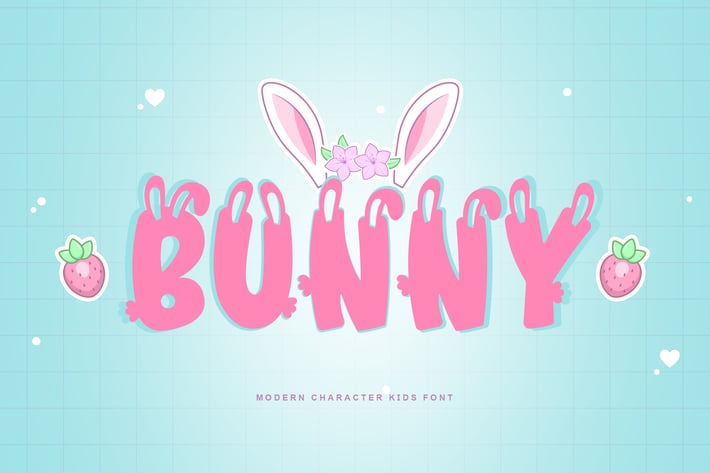
Bunny - Modern Character Kids Font
Introducing "Bunny," a modern character kids font that brings playful whimsy and endless fun to your design projects. Perfect for children's book designers, educators, and creatives looking to captivate young audiences, Bunny offers a delightful and cheerful typeface that sparks joy and imagination.
Ideal for children's books, posters, educational materials, logos, and toy packaging, Bunny’s cute and quirky characters provide a friendly and engaging aesthetic. Each letter is meticulously crafted to be easily readable and visually appealing, ensuring your designs are both fun and effective.
The "Bunny" font includes a complete set of uppercase and lowercase letters, numbers, punctuation marks, and special characters. This versatility allows for seamless integration into various design projects, from lively posters to enchanting storybooks.
Add a touch of playful charm and creativity to your designs with Bunny, the modern character kids font that makes every project a delightful adventure.
Introducing "Bunny," a modern character kids font that brings playful whimsy and endless fun to your design projects. Perfect for children's book designers, educators, and creatives looking to captivate young audiences, Bunny offers a delightful and cheerful typeface that sparks joy and imagination.
Ideal for children's books, posters, educational materials, logos, and toy packaging, Bunny’s cute and quirky characters provide a friendly and engaging aesthetic. Each letter is meticulously crafted to be easily readable and visually appealing, ensuring your designs are both fun and effective.
The "Bunny" font includes a complete set of uppercase and lowercase letters, numbers, punctuation marks, and special characters. This versatility allows for seamless integration into various design projects, from lively posters to enchanting storybooks.
Add a touch of playful charm and creativity to your designs with Bunny, the modern character kids font that makes every project a delightful adventure.